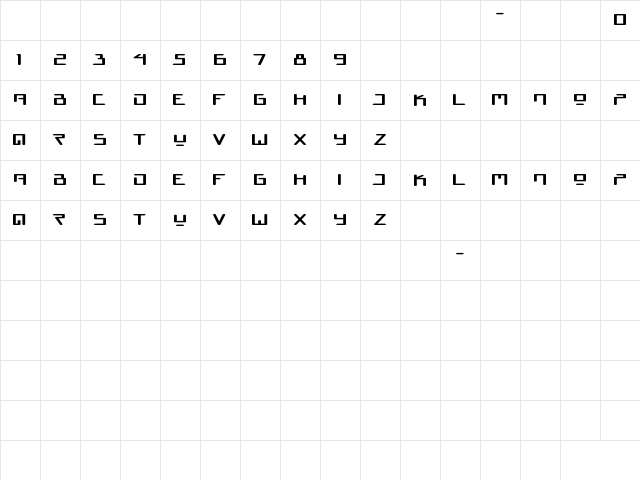
Juno Reactor Regular
Design Context for Juno Reactor Typeface
Juno Reactor is a composed and adaptable typeface that performs quietly and consistently across a wide range of design contexts.